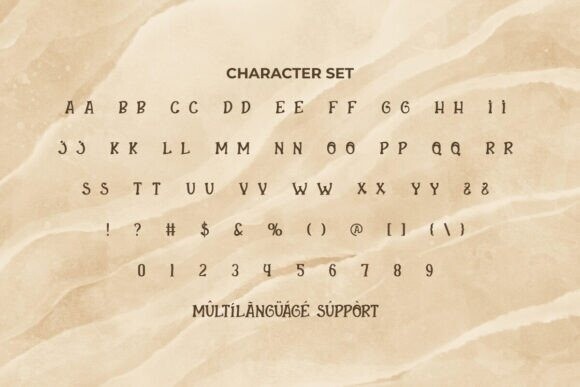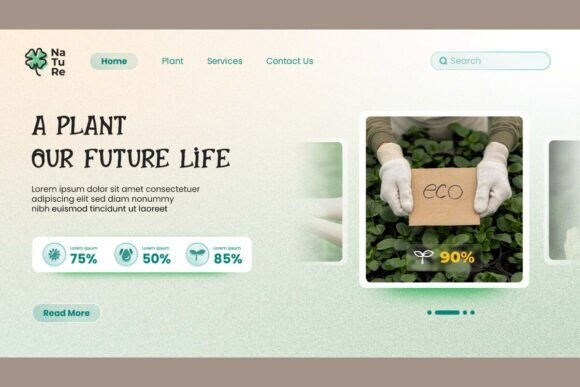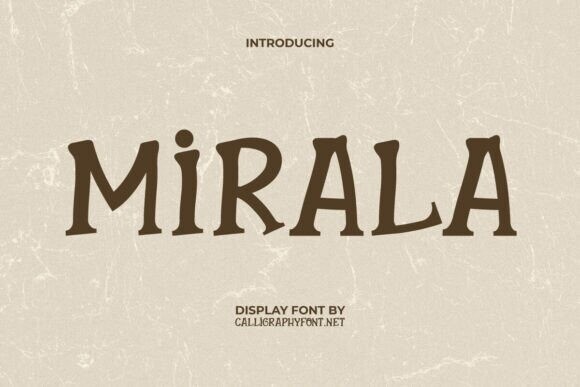
Mirala Font
Mirala Font is a fun playful display font. The font has a unique look that’s a bit odd, just look at the shape of the letters which are based on serif and then made somewhat irregular to create an old impression, but still look funny when conditioned on things with pleasant backgrounds. It will suit any industry, such as accessories, advertisement, artists, botany, clothing brands, events or festivals, fashion designers, fast food, handicrafts, honey farmer, movie, printing, publishing, restaurants, etc.
Mirala Font is a unique blend when juxtaposed with other typefaces or made to stand out on its own in your creative projects, such as billboards, brand logos, brochures, catalogs, covers, headers, labels, menu pamphlets, mockup design, packaging design, poster, price tag, screen print, signage, stationery, sticker, title, watermark, website, and many more.